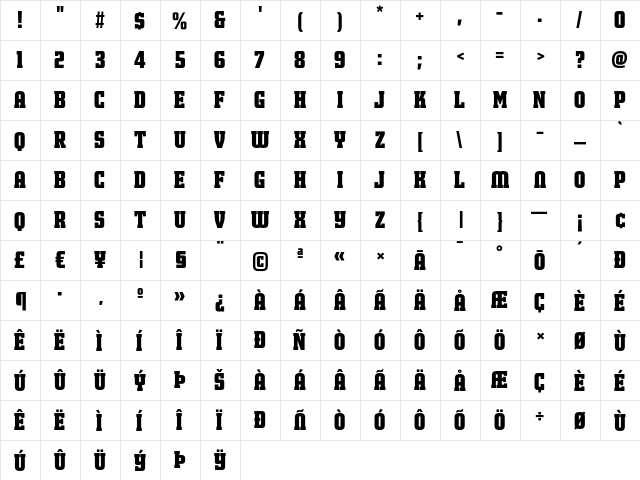
MorganPosterAvec Black
Design Context for MorganPosterAvec Typeface
MorganPosterAvec takes a measured approach to typography — its balanced proportions and neutral character make it a reliable workhorse for both digital and print work.